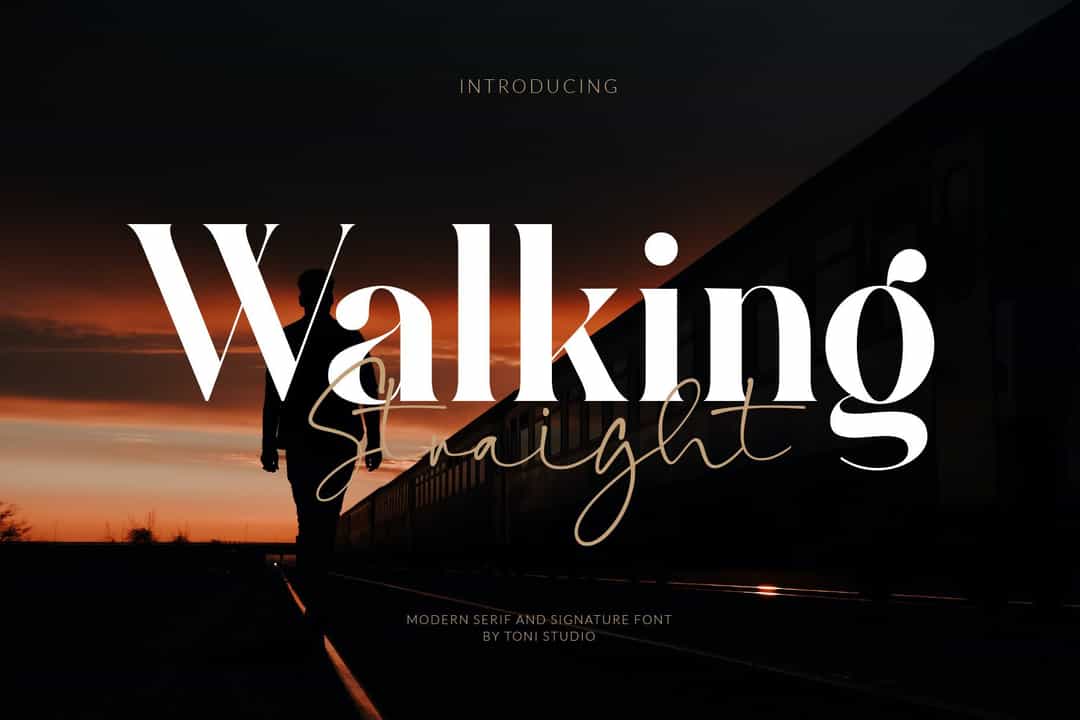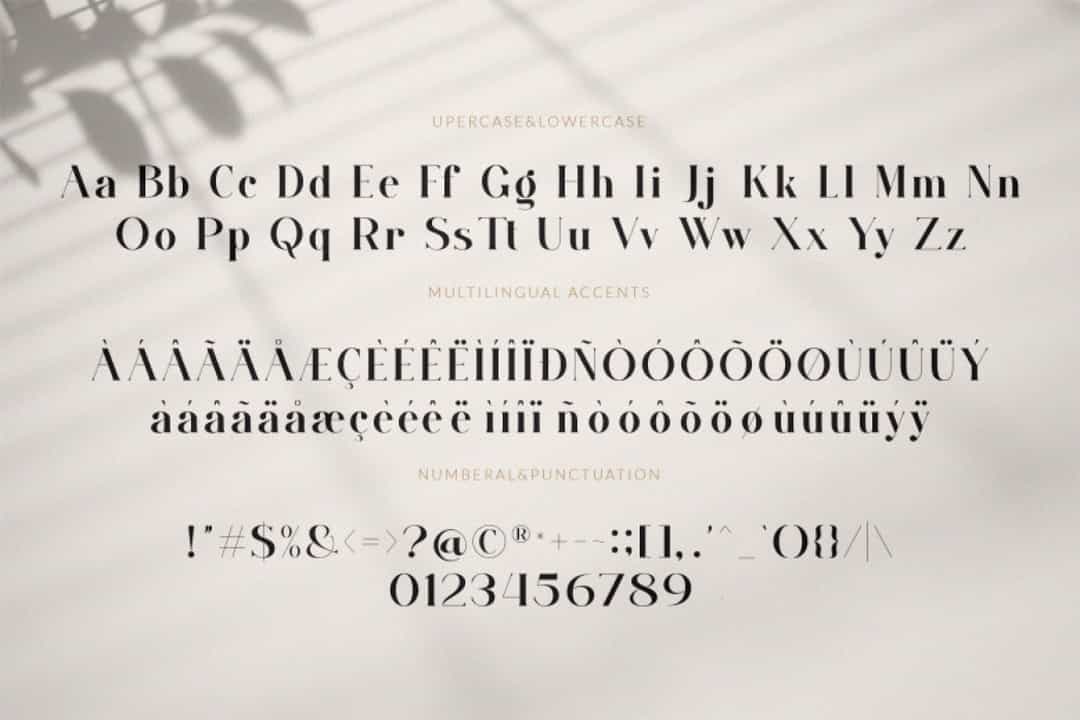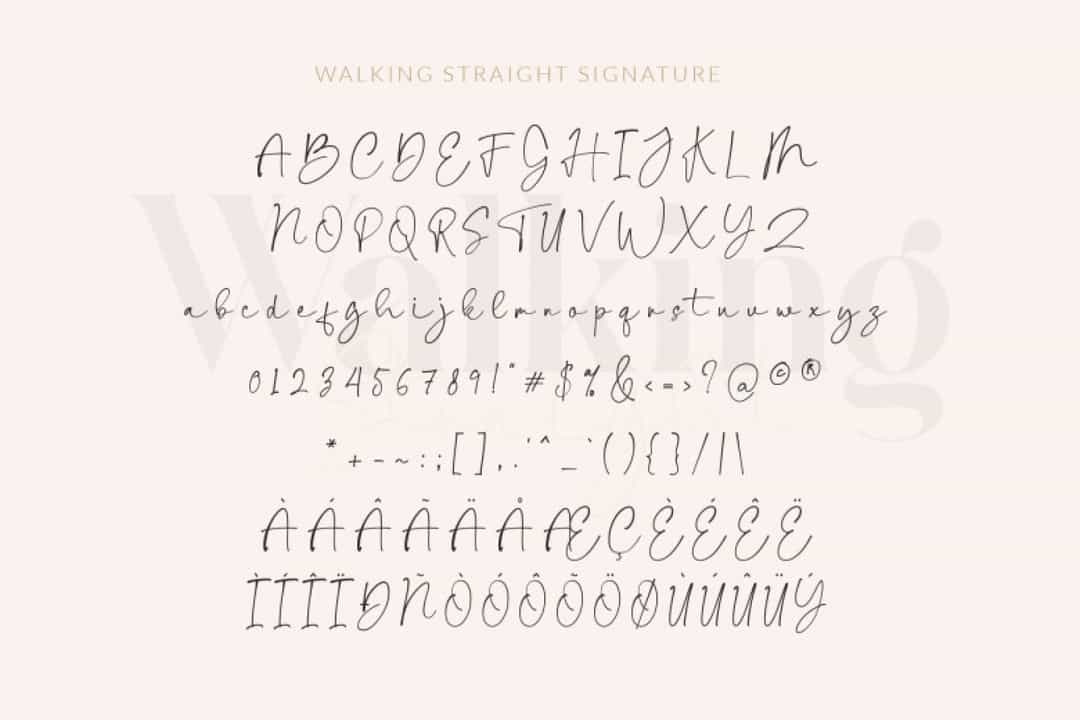
Walking Straight Font Duo is an elegant font with contemporary serifs and signature script. They pair together perfectly, ready for use in your next project! Walking Straight makes an excellent addition to projects in the near future.